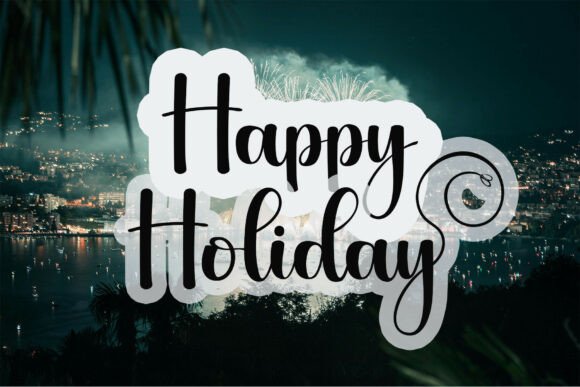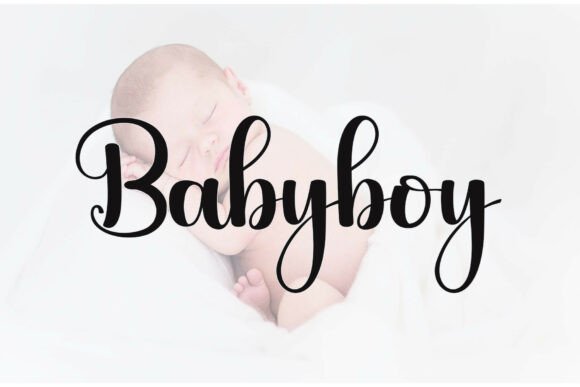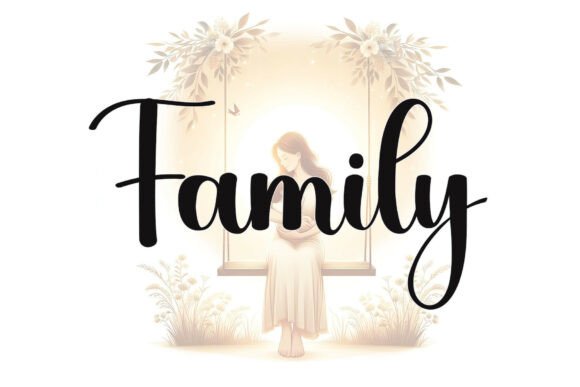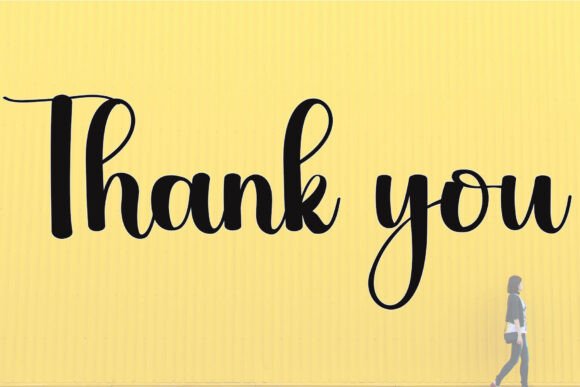
The Elusive Font: A Designer’s Love Affair with Daddy Font
I still remember the frustration of working on a project, hours spent searching for the perfect font, only to come up empty-handed. My client wanted a delicate, elegant, and flowing handwritten font that would bring their brand to life. As I scrolled through font after font, I couldn’t help but feel like I was searching for a needle in a haystack. That was until I stumbled upon Daddy Font.
As soon as I laid eyes on it, I knew I had found the one. **Daddy Font is a delicate, elegant, and flowing handwritten font** that has beautiful and well-balanced characters, making it match a wide pool of designs. In this article, I’ll share my experience with Daddy Font, its features, and how to make the most of it in your designs.
An Honest Review of Daddy Font
What I Love About Daddy Font ✨
- 💫 Delicate and elegant strokes that add a touch of sophistication to any design
- ✅ Well-balanced characters that make it easy to read and understand
- 🌈 Versatile and adaptable to a wide range of designs, from minimalist to luxurious
- 💻 Excellent for use in titles, headings, and body text
- ⚠️ Some characters may appear too delicate for very large or bold designs
- 🤔 Limited availability of stylistic alternates, which may limit creative experimentation
The Story Behind Daddy Font
Daddy Font was created with the intention of crafting a beautiful, handwritten font that would bring a touch of elegance to any design. Its creator aimed to design a font that was both delicate and strong, with a unique character that would stand out in a crowded design landscape.
| Font Name | Daddy Font |
| Author | asmunin78 |
| What makes Daddy Font unique? | Daddy Font’s delicate and elegant strokes, combined with its well-balanced characters, make it a versatile and beautiful addition to any design. |
| Is Daddy Font suitable for body text? | While Daddy Font is elegant and beautiful, it may be best suited for titles and headings. For body text, a clearer font might be more readable. |